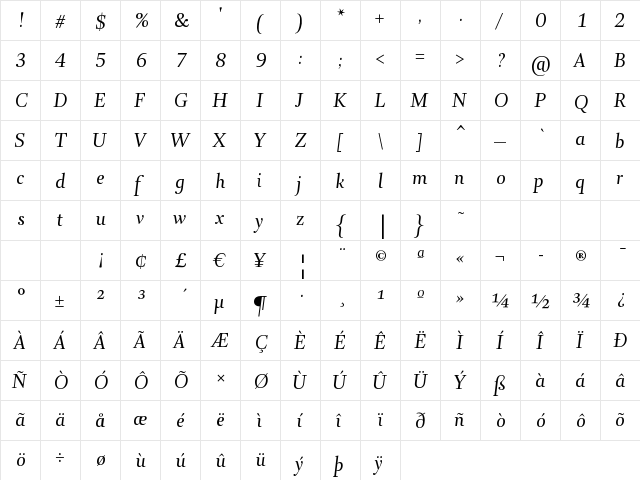
ArnhemFine-NormalItalic Regular
Design Context for ArnhemFine-NormalItalic Typeface
ArnhemFine-NormalItalic offers clean, dependable letterforms without strong stylistic allegiance, making it a practical choice for designers who need flexibility. The slanted form adds forward momentum and visual energy.